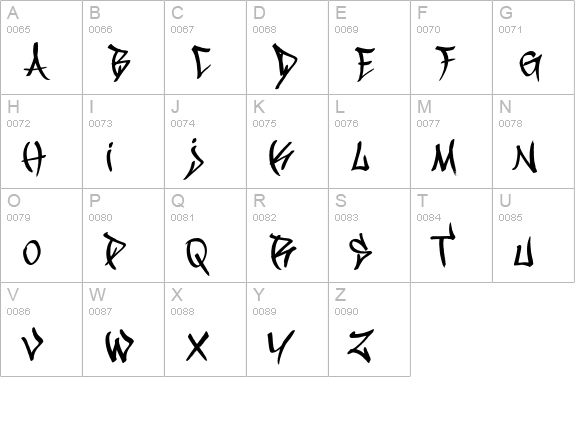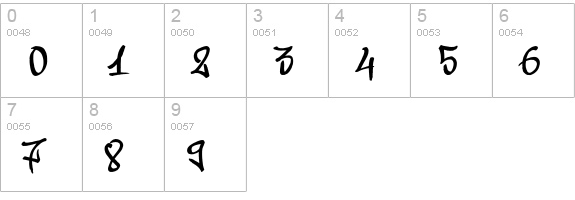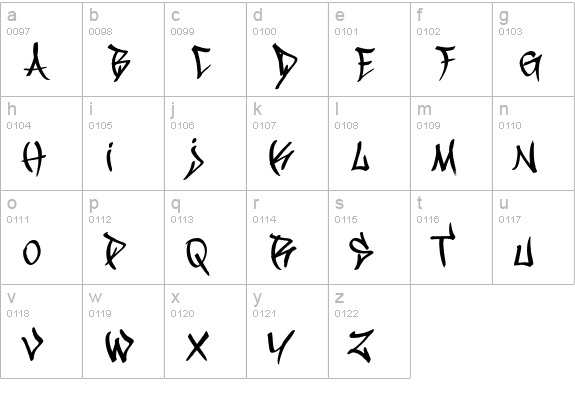
Vandalism Font Details
The Vandalism font is a bold and gritty typeface designed to make a statement. Its rugged edges and distressed appearance give off a rebellious and edgy vibe, perfect for projects that need a touch of urban flair. Whether you're working on a poster, logo, or album cover, the Vandalism font is sure to grab attention and make a lasting impression. Best of all, the Vandalism font is completely free to download at FontsMarket.com. This means you can add this unique and eye-catching font to your collection without breaking the bank. So why wait? Download the Vandalism font today and start making your designs stand out from the crowd.